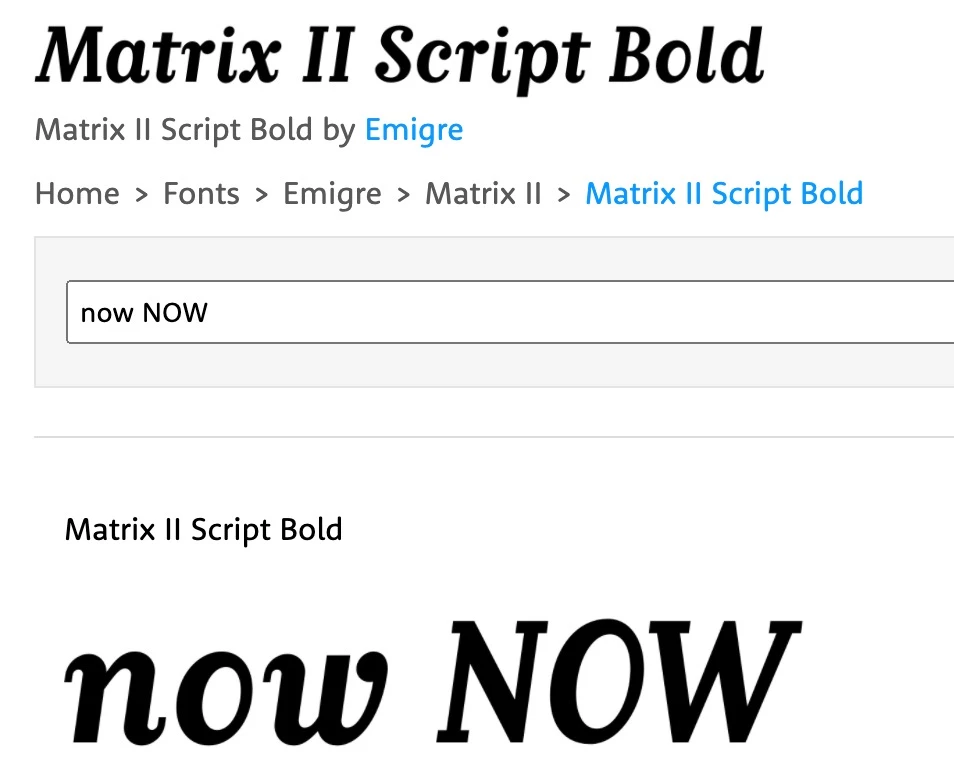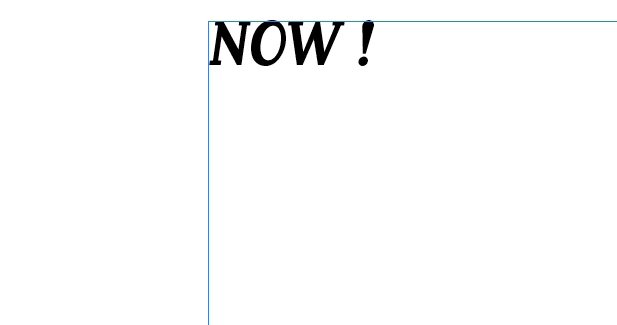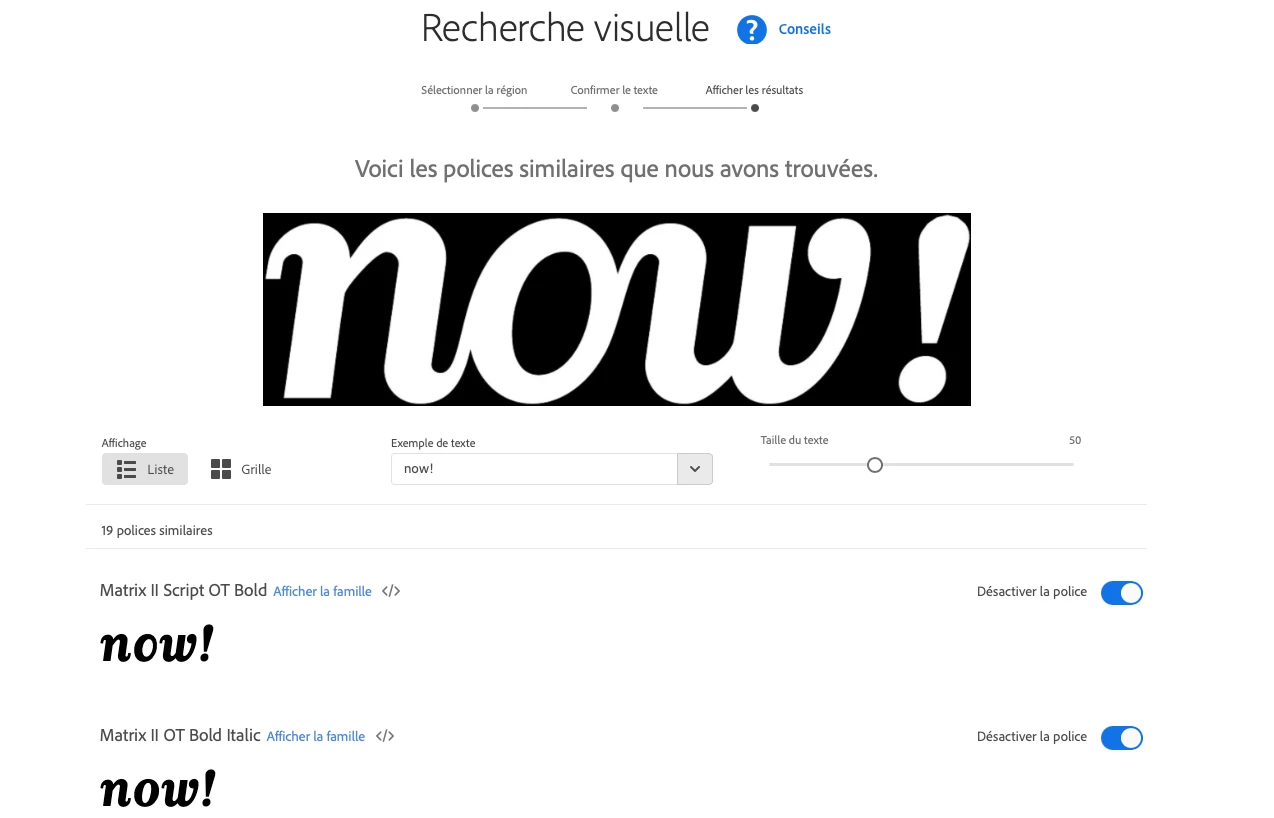
SSolitaire SolidaireKnown Participant5 years agoAug 17, 2021 8:16 PM UTCQuestionFont issue ( Illustrator)4 replies248 viewsTranslateI can't get the same weight and roundness.Please help me to understand what is wrong with Illustrator or me.Product issueMissing featureFont rendering